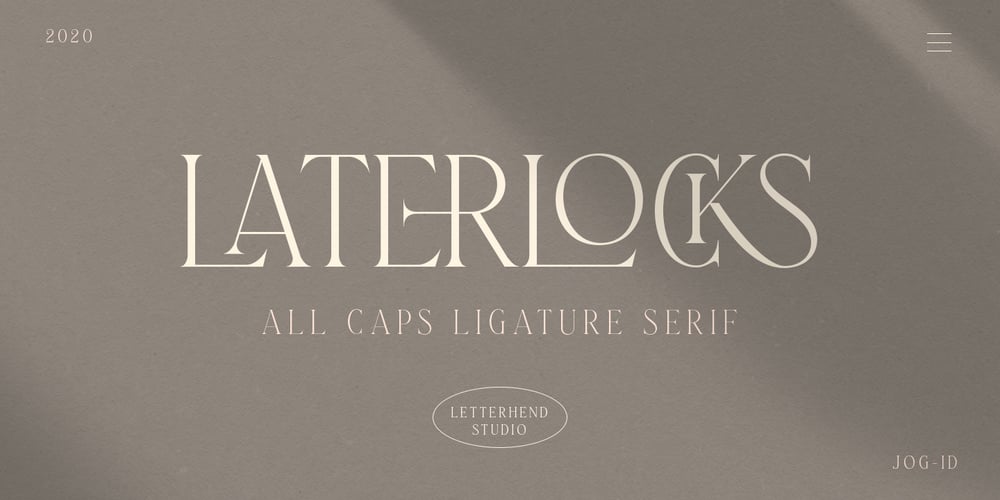
Laterlocks Font Family was designed by Hendry Juanda and published by Letterhend. Laterlocks contains 1 styles and family package options. Introducing, Laterlocks, A sophisticated ligature serif from us. This typeface has been made carefully to make sure its premium quality and luxury feel. The ligatures makes this typeface unique and stands out rather than the regular serif font, very suitable for logo, headline, tittle, and the other various formal forms such as invitations, labels, logos, magazines, books, greeting / wedding cards, packaging, fashion, make up, stationery, novels, labels or any type of advertising purpose.Features : numbers and punctuation multilingual ligatures alternates swashes PUA encoded We highly recommend using a program that supports OpenType features and Glyphs panels like many of Adobe apps and Corel Draw, so you can see and access all Glyph variations. Email us to letterhend@gmail.com if you need something! Happy Designing!